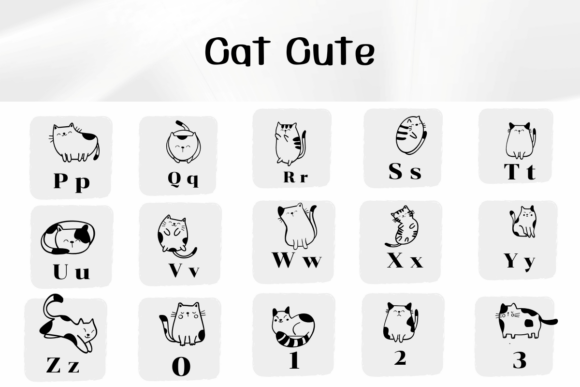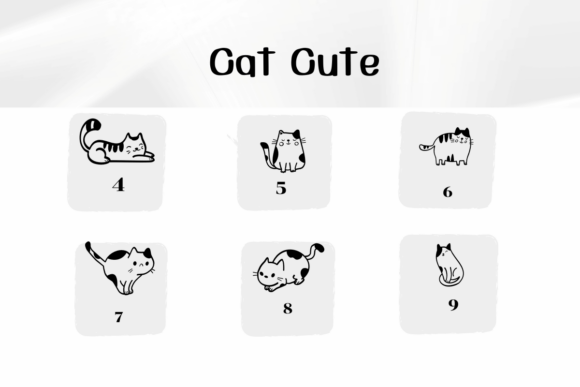
Cat Cute Font
Cat Cute is a dingbat font with cute cats. This font can enhance your creative projects such as wedding invitations, DIY, crafts, decorations, logos, and many other creative ideas.